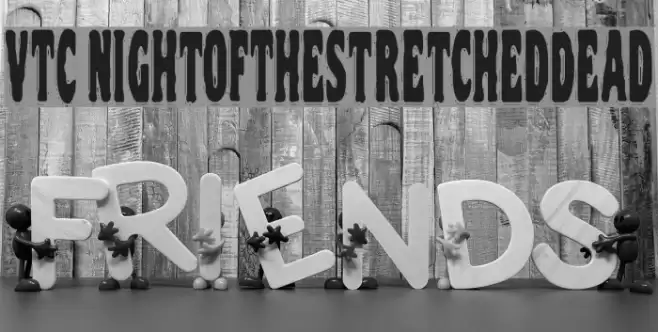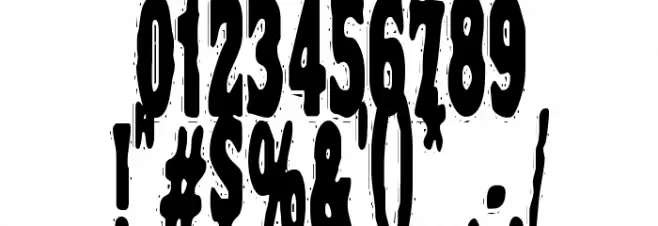
VTC NightOfTheStretchedDead Font
VTC NightOfTheStretchedDead Description
This font features a highly decorative and distressed style, characterized by its elongated and uneven letterforms that evoke a sense of horror or the macabre. The characters appear stretched and distorted, with irregular edges and a textured appearance that suggests decay or erosion. This design choice gives the font a unique, eerie aesthetic that is both eye-catching and unsettling. The uppercase and lowercase letters maintain a consistent style, with numbers and special characters following the same theme. The overall look is bold and impactful, making it suitable for projects that require a dramatic and haunting visual impact.
A decorative, distressed font with elongated, eerie letterforms from Uncategorized fonts.
- Proposed Projects: Ideal for horror-themed posters, Halloween invitations, spooky event branding, or any project needing a dramatic, eerie touch.
- Character Spacing: Tight